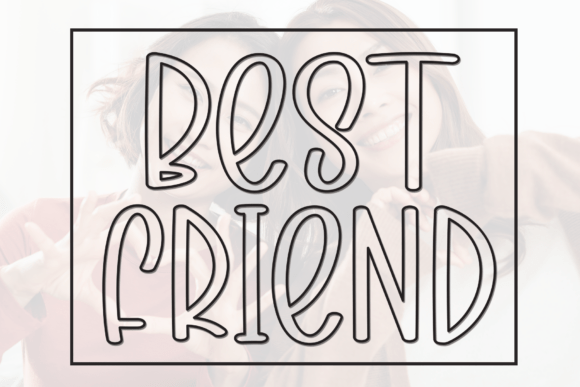
The Ultimate Summer Font: A Deep Dive into Best Friend Font
Ah, the eternal quest for the perfect font! I still remember the summer I was working on a project for a beachside festival, and I just couldn’t find a font that captured the carefree, laid-back vibe I was going for. That was until I stumbled upon Best Friend Font. It was like the design gods had finally smiled upon me! With its clean lines, easygoing charm, and cheerful personality, Best Friend Font has become my go-to for any project that needs a dash of fun and relaxation.
So, what makes Best Friend Font so special? Let’s dive into the good stuff:
- ✨ Clean and modern design: Best Friend Font boasts a sleek, contemporary look that’s perfect for summer posters, event flyers, and playful branding.
- ✅ Ease of use: This font is incredibly easy to read, even at smaller sizes, making it versatile for a wide range of projects.
- 🌞 Cheerful personality: Best Friend Font radiates a breezy, laid-back feel that’s sure to bring a smile to your audience’s faces.
Now, no font is perfect, and Best Friend Font has a few minor quirks to keep in mind:
- 🤔 Limited formal applications: Due to its casual nature, Best Friend Font might not be the best fit for more formal or professional projects.
- ⚠️ Glyph limitations: While Best Friend Font has a range of OpenType features, it might not have the extensive glyph library of some other fonts.
The Story Behind Best Friend Font
Best Friend Font was designed with the intention of capturing the essence of a perfect summer day. Its creator, a passionate typographer, aimed to craft a font that would evoke feelings of relaxation and joy. With its clean lines and cheerful personality, Best Friend Font has become a staple in many designers’ toolkits.
| Font Name | Best Friend Font |
| What makes Best Friend Font unique? | Best Friend Font stands out with its clean lines, easygoing vibe, and cheerful personality, making it perfect for summer-themed projects and playful branding. |
| Is Best Friend Font suitable for body text? | While Best Friend Font is easy to read, it’s primarily designed for display purposes. For body text, consider using a more traditional font. |